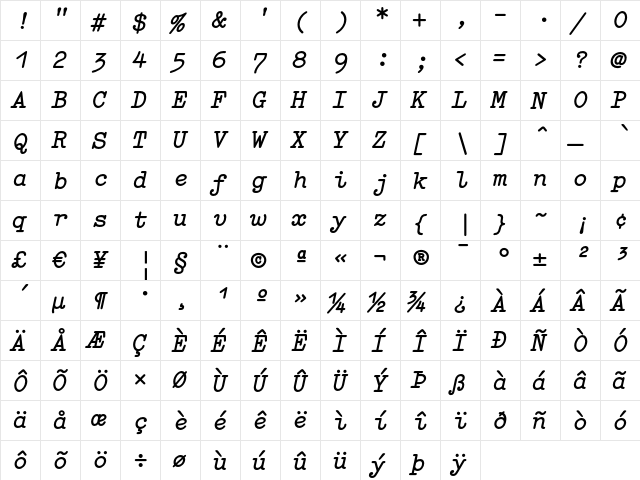
Elementa Bold Italic
Design Context for Elementa Typeface
Elementa is a composed and adaptable typeface that performs quietly and consistently across a wide range of design contexts. Its italic angle brings a sense of urgency and motion to the letterforms. Its bold stroke weight gives it real presence on the page.
Pro Tip: Use Elementa for emphasis, pull quotes, and subheadings where its slanted energy can add rhythm to the layout.